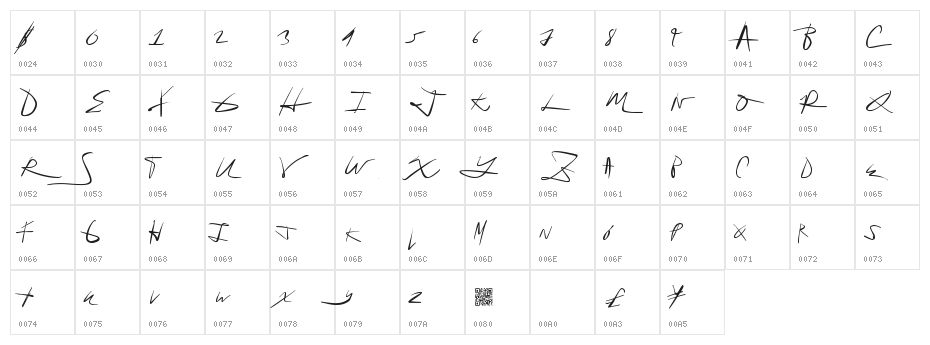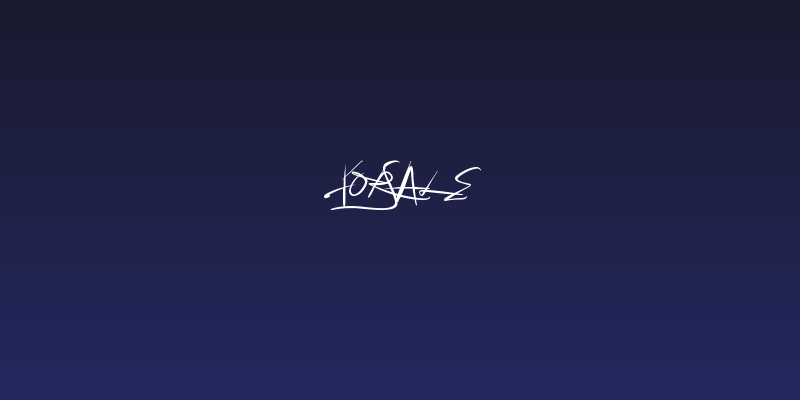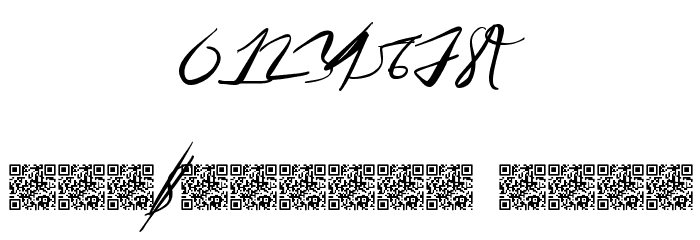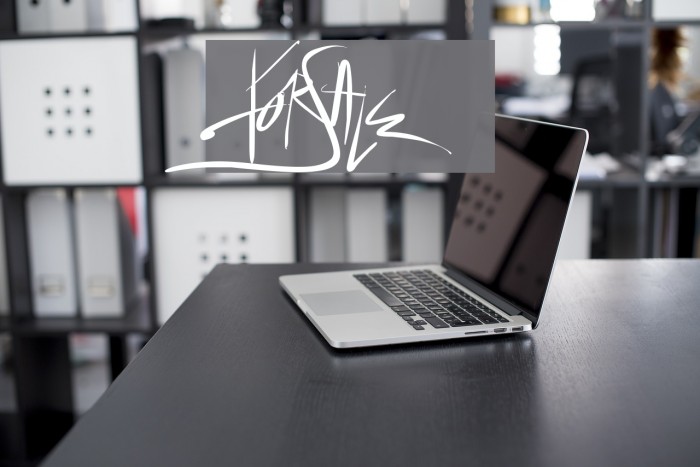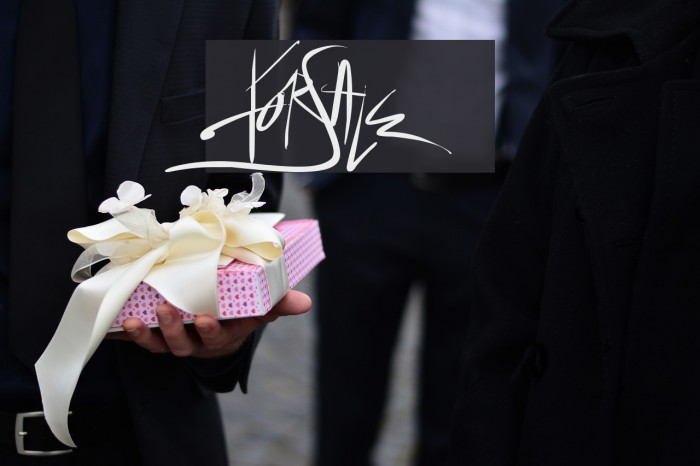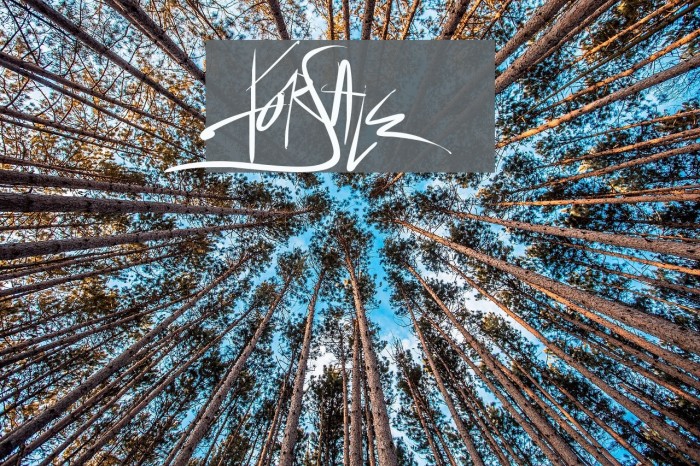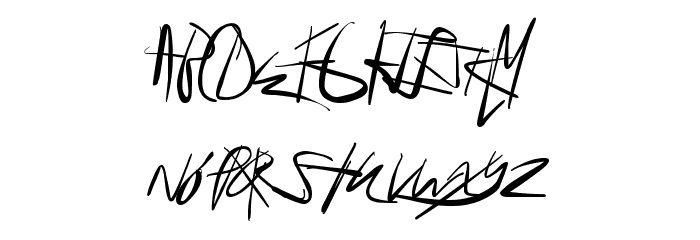
ForSale Font
ForSale Description
This font exhibits a highly expressive and chaotic handwritten style, characterized by its erratic and overlapping strokes. The letters are freeform and dynamic, giving the impression of rapid, spontaneous writing. Each character is unique, with varying angles and curves, contributing to a sense of movement and energy. The font's irregularity and boldness make it stand out, though it may challenge readability in longer texts. Its artistic flair and unconventional design suggest a rebellious or avant-garde aesthetic.
| Use Case | Logos, Posters, Artistic projects |
| Proposed Projects | Ideal for artistic projects, album covers, graffiti-inspired designs, or any creative work seeking a bold, unconventional look. |